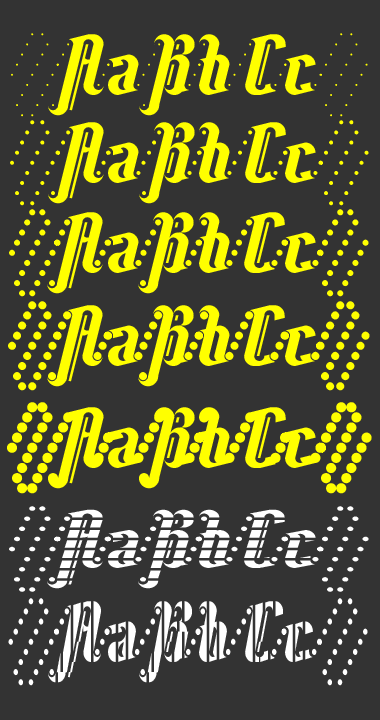
Wow! The bar is high...
Well there go my chances LOL
Great entry! And clever solution for the connector.
Interesting connections. 10/10
Nice work.
I think your connectors are within the rules, but Meek will have to clarify if they really are.
The connectors are within the rules. They connect even if they don't touch.
Seeing this I think I'll stop trying ... this is so very nice and also unusual.
Interesting concept and great execution, looking forward to seeing the rest!
Thanks, everybody! I'll make it clonable once I finish the set. You can then change the dot into a smaller or bigger one, or play with filters. Thank you.
It's clonable now. Image above is the result of applying fontstructor's brick swap and filtering options. Try for yourself. But even though I've remade most composites to suit for filtering, vertical one doesn't quite work... Still in progress. Thanks.
I'm not good with illustrations, but you'll get the idea:
Lovely.
Congratulations! FontStruct Staff have deemed your FontStruction worthy of special mention. “Offelia” is now a Top Pick.
That is really cool. I really like the dots!
So unique. Love it!